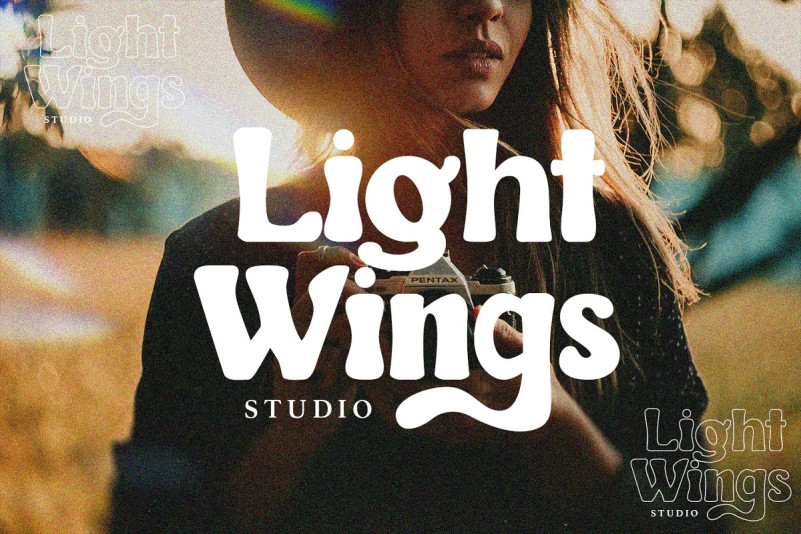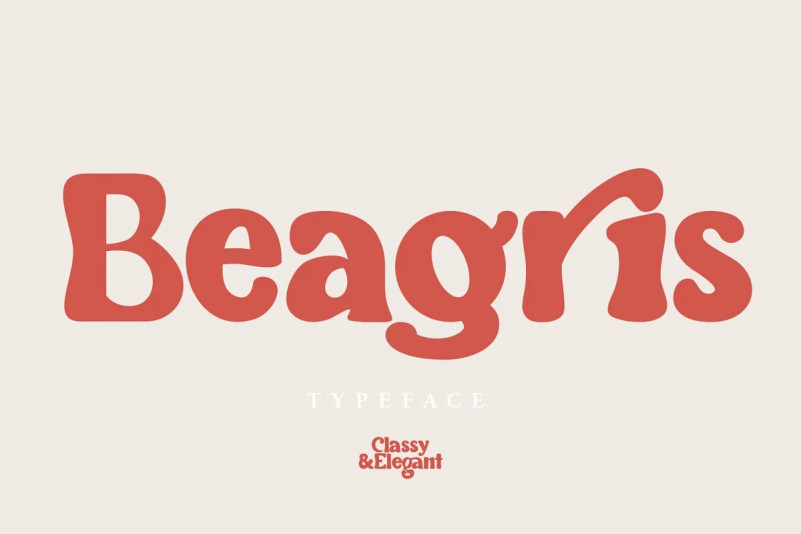
Beagris Font
Beagris Display Font is a modern typeface with a very unique alternate and ligature
Beagris came with opentype features such stylistic alternates, stylistic sets & ligatures good for logotype, poster, badge, book cover, tshirt design, packaging and any more.